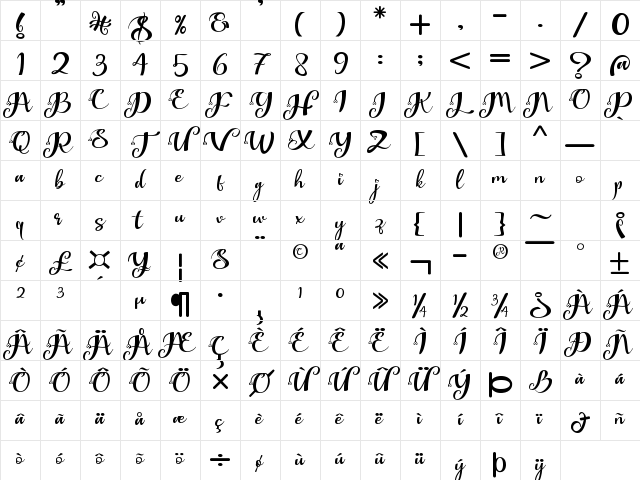
Valentine Fantasy Regular
Designer: Mengulirpena 2020 (Deny Dwi Kurniawan)
Design Context for Valentine Fantasy
Valentine Fantasy is a composed and adaptable typeface that performs quietly and consistently across a wide range of design contexts.
Pro Tip: Use Valentine Fantasy in both headline and body roles to test its range before committing to a single application.